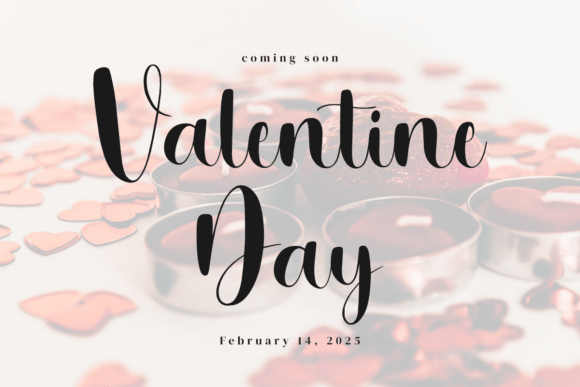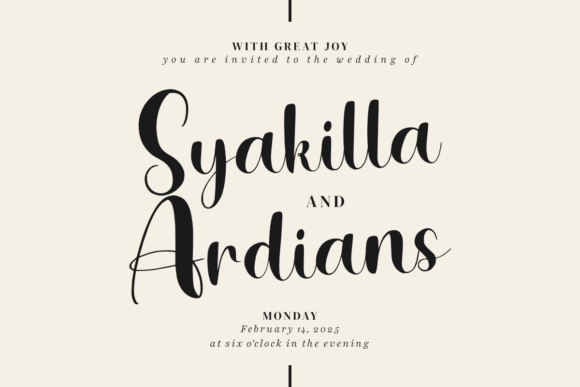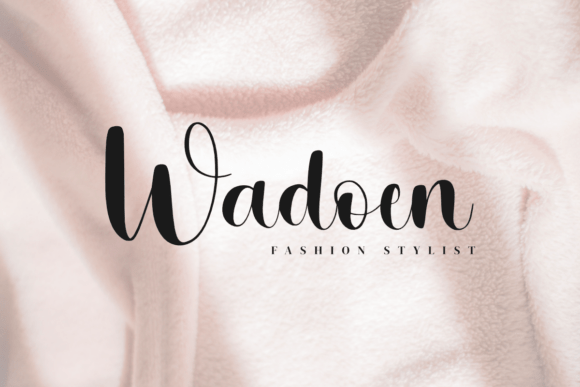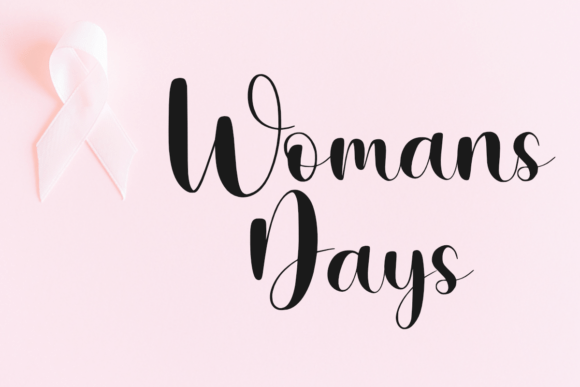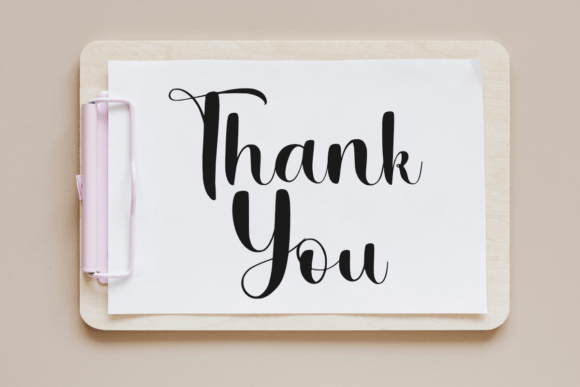
Introducing Birthday Planner Font: The Sweet and Elegant Choice for Designers
Are you looking for a font that can add a touch of sweetness and romance to your designs? Look no further than the Birthday Planner Font, a beautiful and elegant handwritten font that’s perfect for a variety of design projects. In this article, we’ll take a closer look at the features and benefits of this gorgeous font, and explore how it can elevate your designs to the next level.
The Characteristics of Birthday Planner Font
Birthday Planner Font is a sweet and cursive handwritten font that’s designed to bring a touch of joy and romance to your designs. Its gentle and flowing lines make it perfect for creating elegant and sophisticated designs that are sure to impress. The font’s cursive style gives it a personal and human touch, making it ideal for designs that require a more personal and emotional connection.
What Makes Birthday Planner Font So Versatile?
One of the things that sets Birthday Planner Font apart from other fonts is its incredible versatility. This font can be used on a wide range of design projects, from branding and logos to wedding invitations and greeting cards. Its elegant and cursive style makes it perfect for designs that require a touch of sophistication and glamour, while its casual and approachable feel makes it suitable for more relaxed and informal designs.
Birthday Planner Font is a perfect choice for designers and crafters who want to add a touch of elegance and sophistication to their designs. Whether you’re creating logos, branding materials, or marketing collateral, this font is sure to impress. Its unique and stylish design makes it perfect for designers who want to stand out from the crowd and create designs that are truly memorable.
Use Cases for Birthday Planner Font
So, what are some of the best use cases for Birthday Planner Font? Here are a few ideas to get you started:
- Branding and Logos: Use Birthday Planner Font to create elegant and sophisticated logos that reflect your brand’s personality and style.
- Wedding Invitations: Add a touch of romance and elegance to your wedding invitations with this beautiful font.
- Greeting Cards: Use Birthday Planner Font to create beautiful and heartfelt greeting cards for special occasions.
- Fashion and Lookbooks: Add a touch of glamour and sophistication to your fashion designs and lookbooks with this elegant font.
- Marketing and Promotion: Use Birthday Planner Font to create eye-catching and effective marketing materials that grab attention and drive results.
Why Choose Birthday Planner Font?
So, why should you choose Birthday Planner Font for your design projects? Here are just a few reasons:
- Unique and Stylish: Birthday Planner Font is a unique and stylish font that’s sure to make your designs stand out from the crowd.
- Elegant and Sophisticated: This font’s elegant and cursive style makes it perfect for designs that require a touch of sophistication and glamour.
- Versatile: Birthday Planner Font can be used on a wide range of design projects, from branding and logos to wedding invitations and greeting cards.
- Easy to Read: This font is easy to read and understand, making it perfect for designs that require clear and effective communication.
In conclusion, Birthday Planner Font is a beautiful and elegant handwritten font that’s perfect for designers and crafters who want to add a touch of sweetness and romance to their designs. Its unique and stylish design, versatility, and ease of use make it a great choice for a wide range of design projects. Whether you’re creating logos, branding materials, or marketing collateral, Birthday Planner Font is sure to impress. So why wait? Download Birthday Planner Font today and start creating stunning designs that are sure to leave a lasting impression!